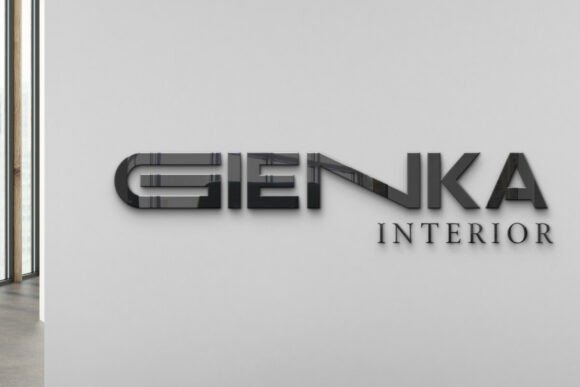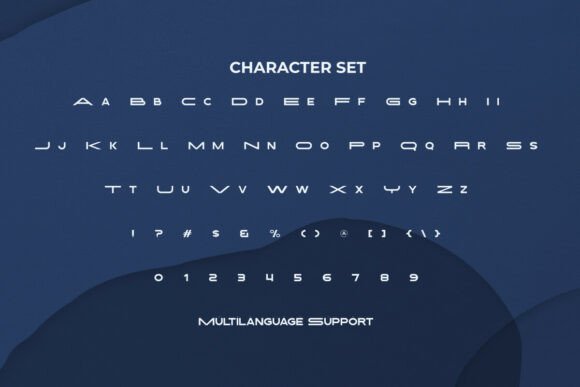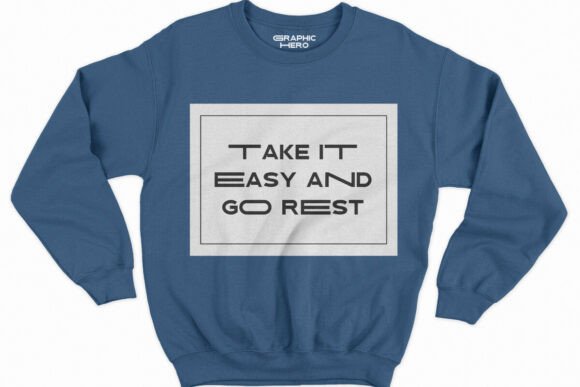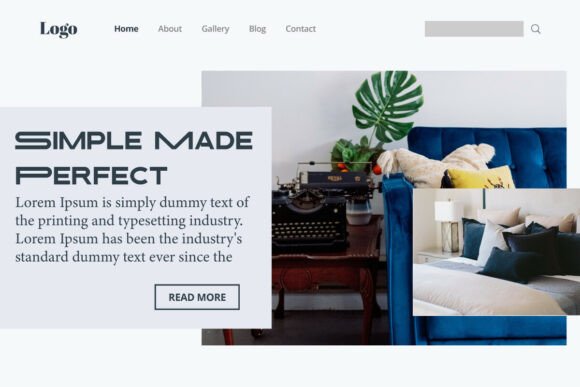
Davine Gerian Font: Elevate Your Designs with Modern Style
In the world of typography, fonts play a crucial role in communicating a brand’s message and aesthetic. For designers and crafters looking for a modern and stylish sans-serif font, Davine Gerian Font is an excellent choice. This versatile font boasts unique letterforms that add a touch of sophistication to any design project.
What Makes Davine Gerian Font Stand Out?
Davine Gerian Font is a modern sans-serif font that offers a fresh take on traditional typography. Its letterforms are carefully crafted to provide a stylish variation that sets it apart from other fonts. The font’s clean lines, precise curves, and balanced spacing make it perfect for a wide range of design applications.
Davine Gerian Font is an incredibly versatile font that can be used for various design projects, including:
- Brand image and logo design
- Cover and brochure design
- Custom design and illustration
- Invitation and greeting card design
- Label and packaging design
- Marketing materials and advertising
- Menu and restaurant design
- Poster and flyer design
- Product packaging and branding
- Quotes and inspirational designs
- Signage and outdoor advertising
- Stationery and office supplies
- Web design and digital media
Perfect for Various Industries
The modern and stylish look of Davine Gerian Font makes it an excellent choice for various industries, including:
- Accessories and jewelry design
- Advertising and marketing agencies
- Camping and outdoor gear design
- Event and festival branding
- Fashion and apparel design
- Movie and film production
- Photography and visual arts
- Printing and publishing
- Sport and fitness branding
- Travel and tourism marketing
Why Choose Davine Gerian Font?
There are several reasons why designers and crafters should consider Davine Gerian Font for their projects:
- Modern and stylish look: The font’s unique letterforms provide a fresh and contemporary aesthetic that will elevate any design.
- Versatility: Davine Gerian Font can be used for a wide range of design applications, from branding and advertising to packaging and web design.
- Easy to read: The font’s clean lines and balanced spacing make it easy to read, even at small sizes.
- High-quality design: The font is carefully crafted to provide a high-quality design that will reflect positively on any brand or project.
Tips for Using Davine Gerian Font
To get the most out of Davine Gerian Font, here are some tips for using it effectively:
- Use it as a headline font: The font’s modern and stylish look makes it perfect for headlines and titles.
- Pair it with other fonts: Davine Gerian Font can be paired with other fonts to create a unique and visually appealing design.
- Experiment with colors and textures: The font’s clean lines and simple design make it easy to experiment with different colors and textures.
Davine Gerian Font is a versatile and stylish sans-serif font that is perfect for designers and crafters looking to elevate their designs. Its modern look, versatility, and high-quality design make it an excellent choice for a wide range of design applications and industries. Whether you’re looking to create a brand image, design a brochure, or develop a website, Davine Gerian Font is an excellent choice.